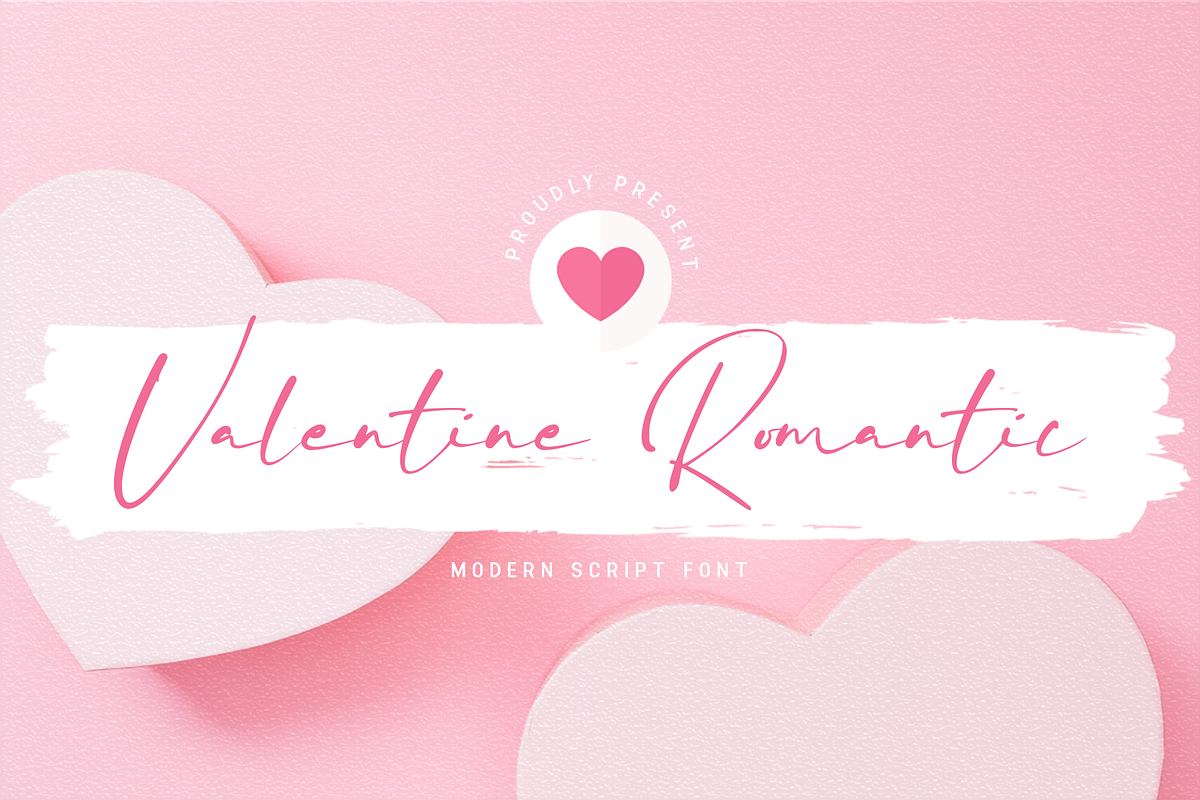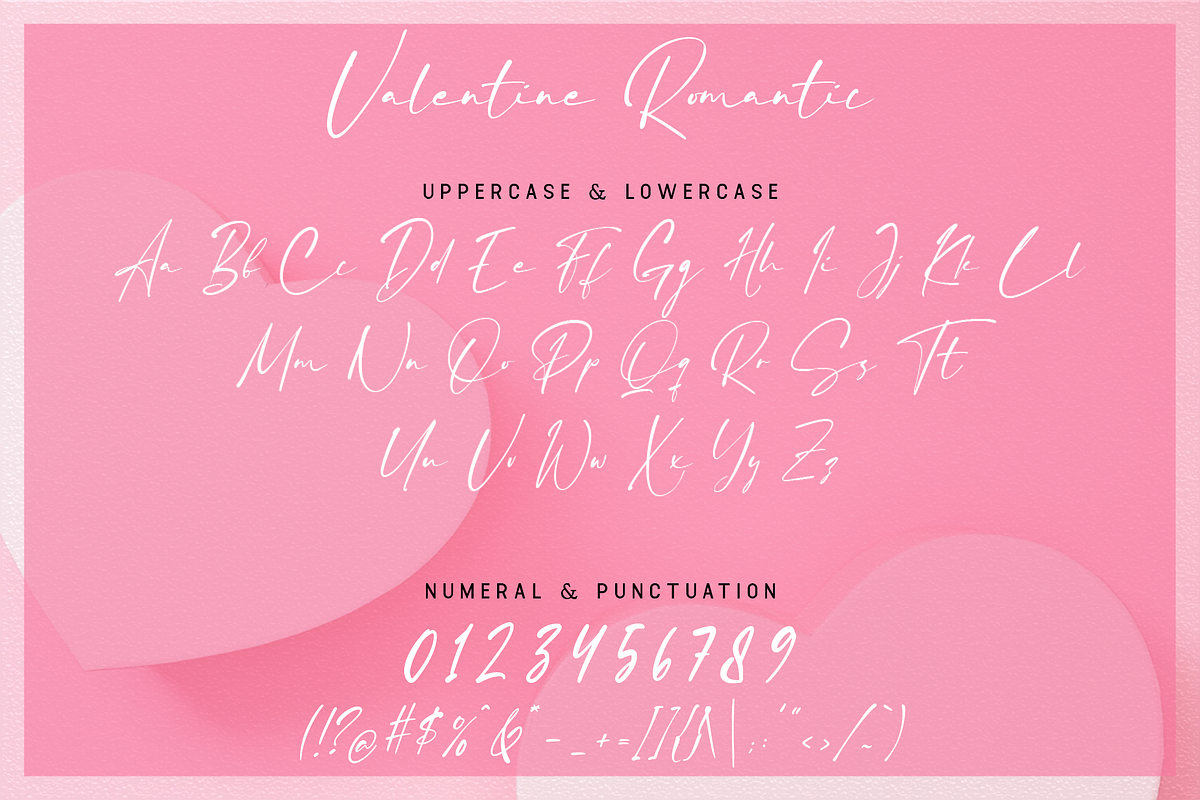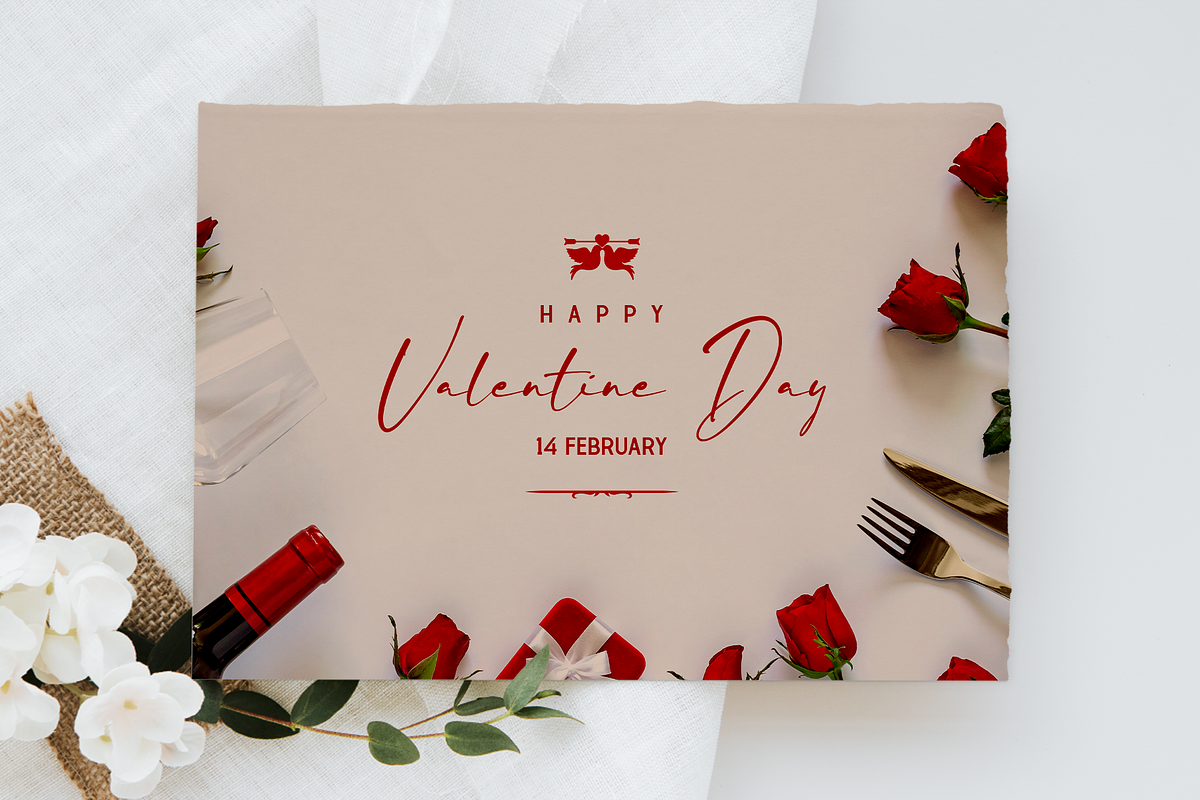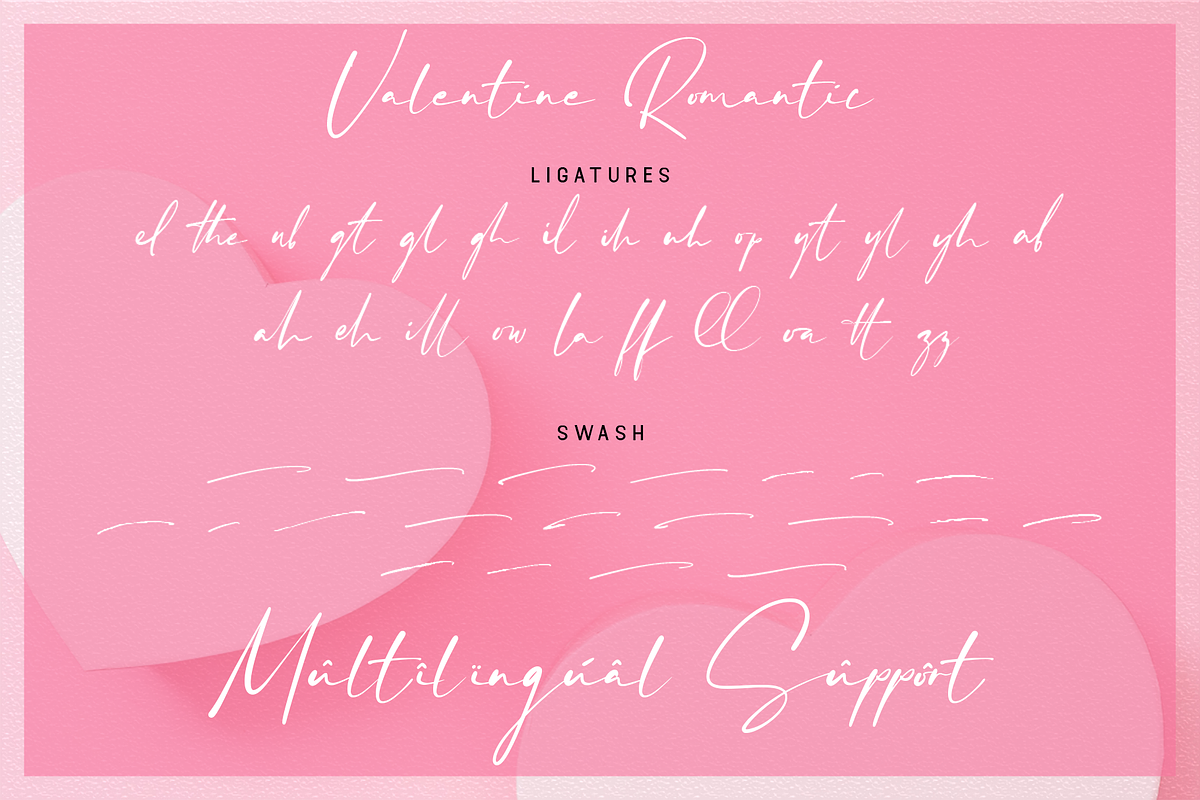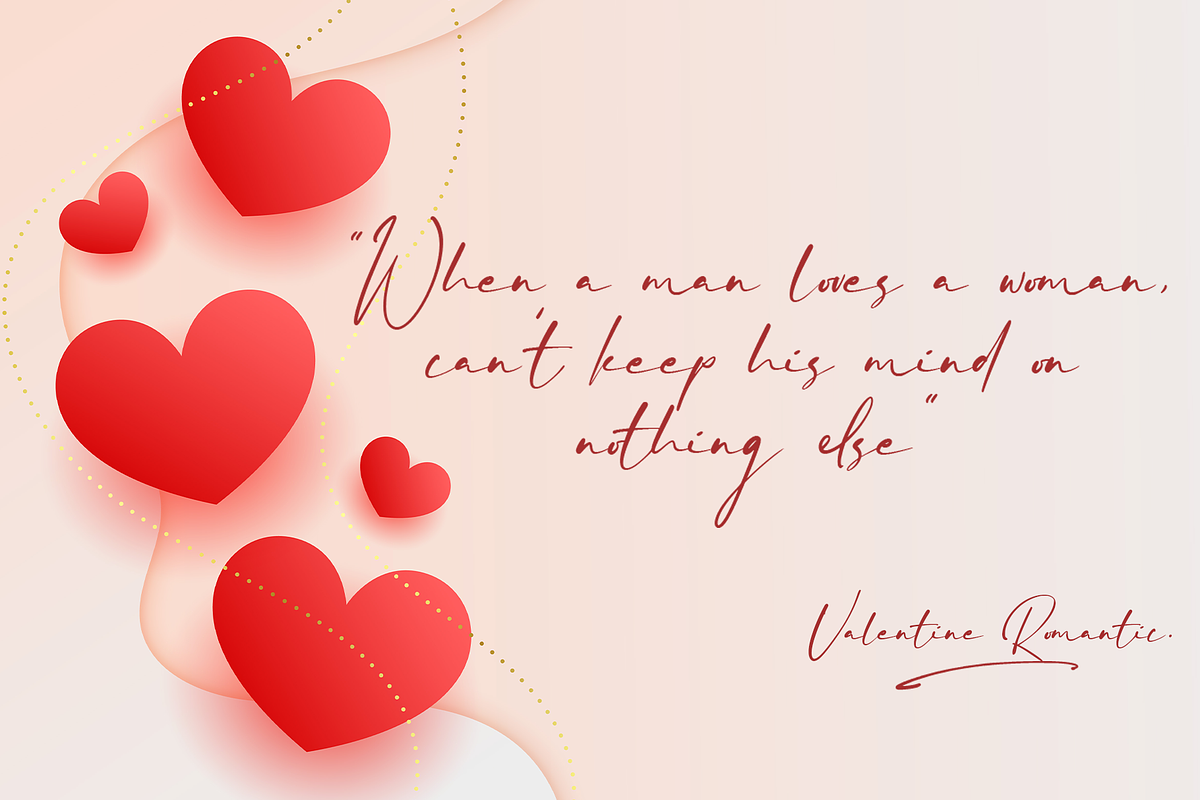
Valentine Romantic - A Modern Script
Valentine Romantic - A Modern Script Font
Valentine Romantic is a modern and charming script font designed to add a touch of romance and elegance to your design projects. With its graceful swashes and fluid letterforms, Valentine Romantic is perfect for love-themed invitations, elegant greeting cards, stylish branding, and heartfelt messages. This font captures the essence of modern romance, ensuring your work stands out with a warm and inviting appeal.
Crafted with care, Valentine Romantic features flowing and delicate characters that offer excellent readability and visual charm. Its modern script style makes it ideal for display purposes, providing a sophisticated and intimate presence. The font’s versatility allows it to adapt seamlessly to various design contexts, from digital invitations to printed materials, making it a valuable asset for any designer aiming to create elegant and romantic visuals.
Elevate your design projects with Valentine Romantic, a font that embodies the beauty of love and sophistication. Its unique style and adaptability make it an essential addition to any designer’s toolkit for crafting captivating and heartfelt designs. Enhance your work with Valentine Romantic and experience the charm of modern script typography.